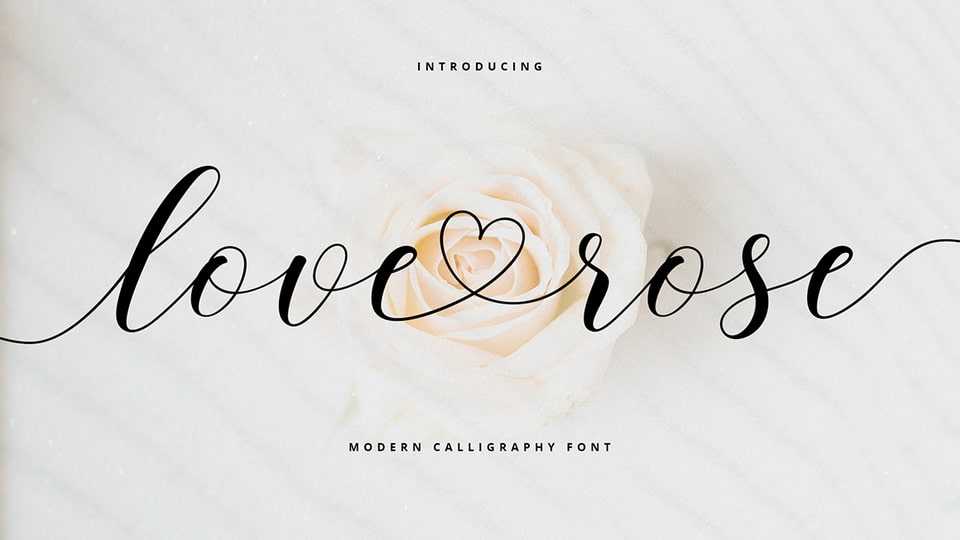
Download Love Rose font, a beautiful and lovely modern calligraphy typeface. Perfectly suitable for branding, wedding invitations, and any other romantic project.